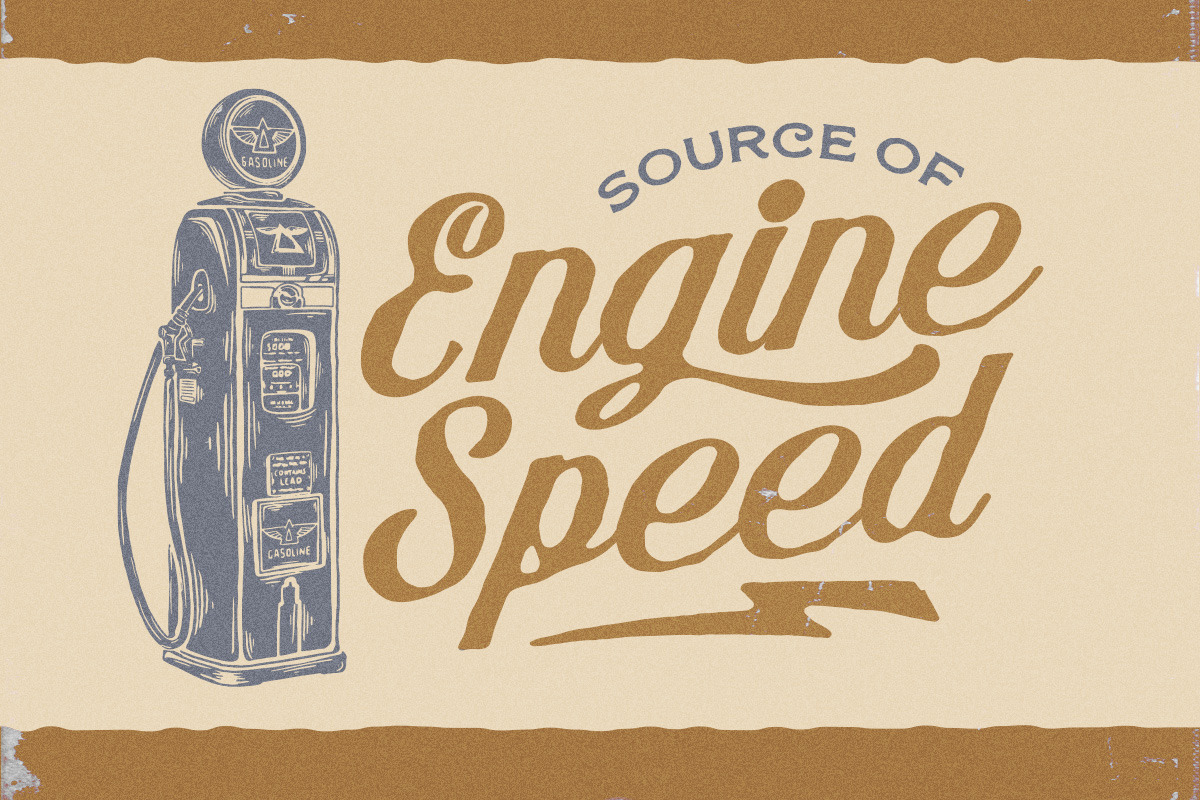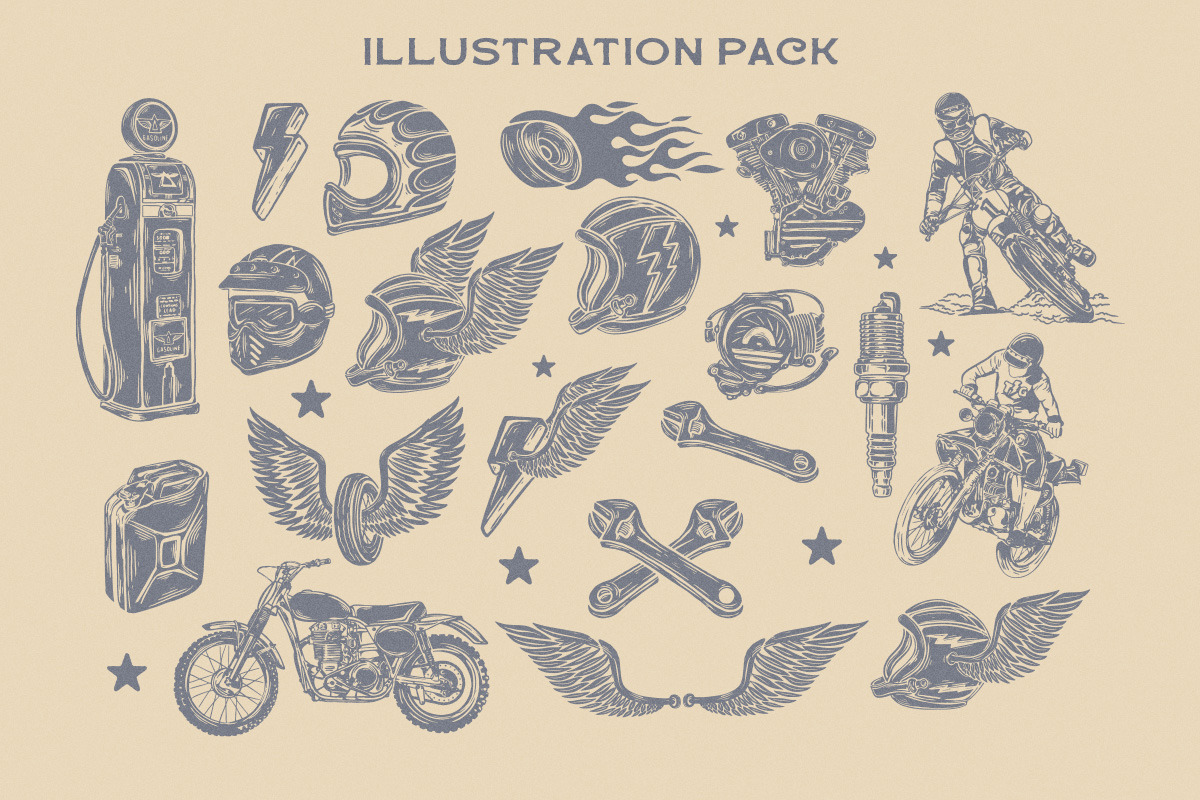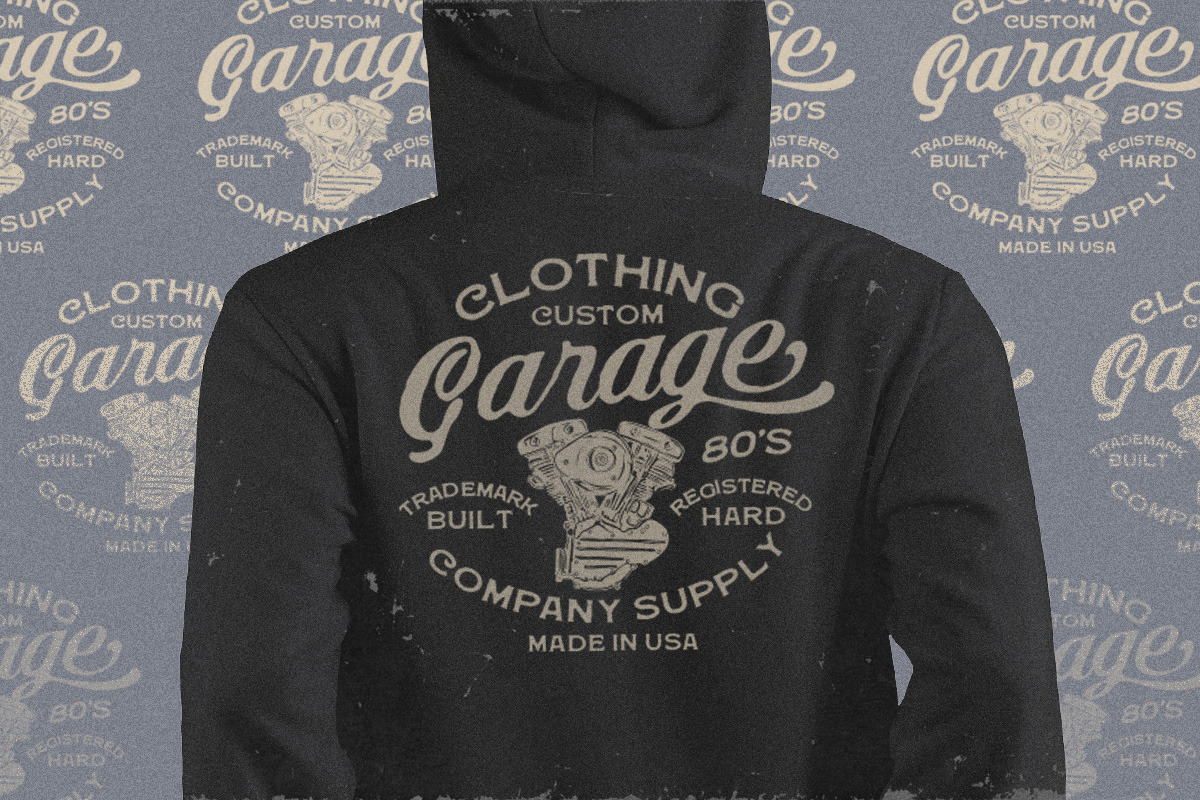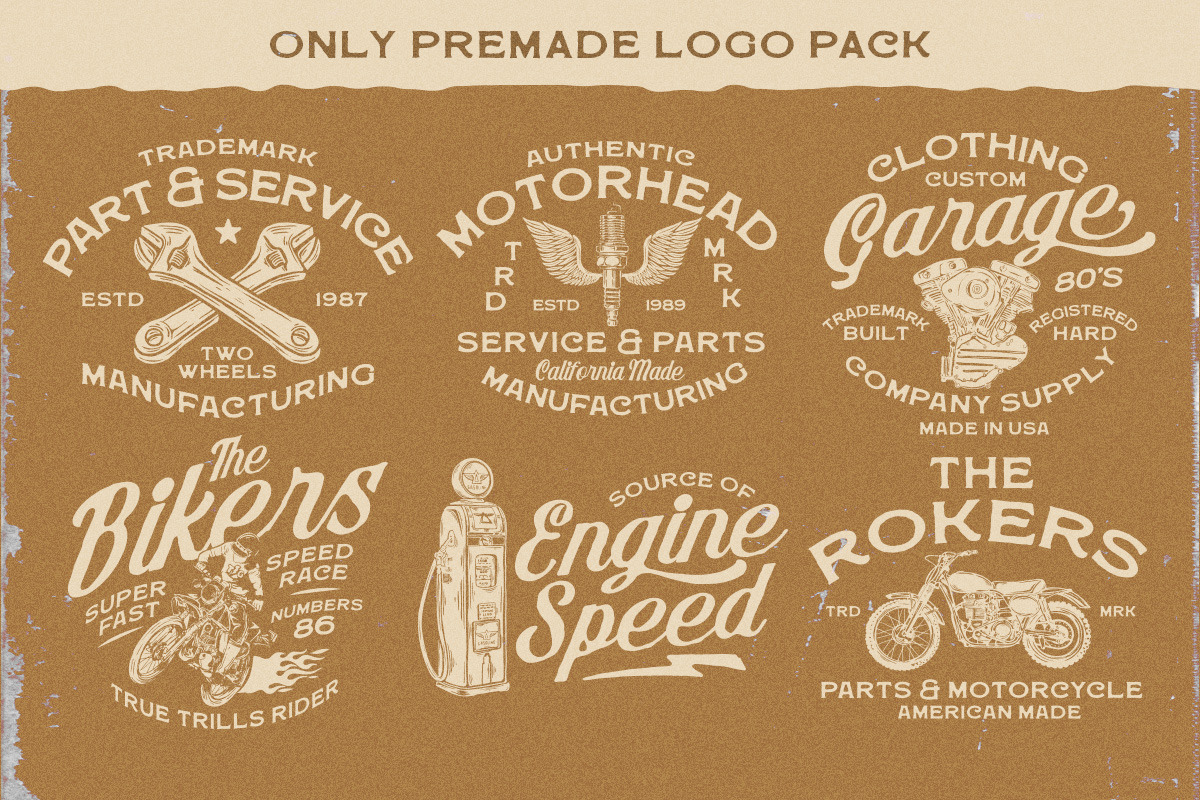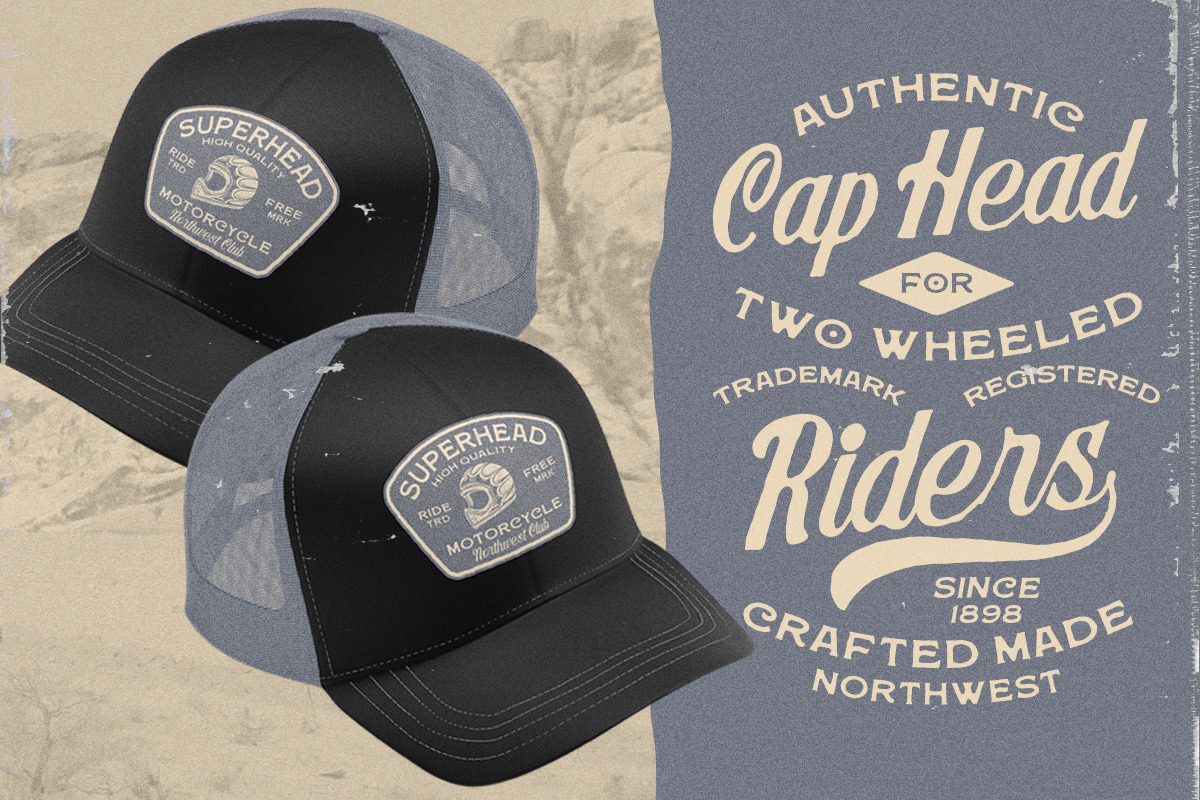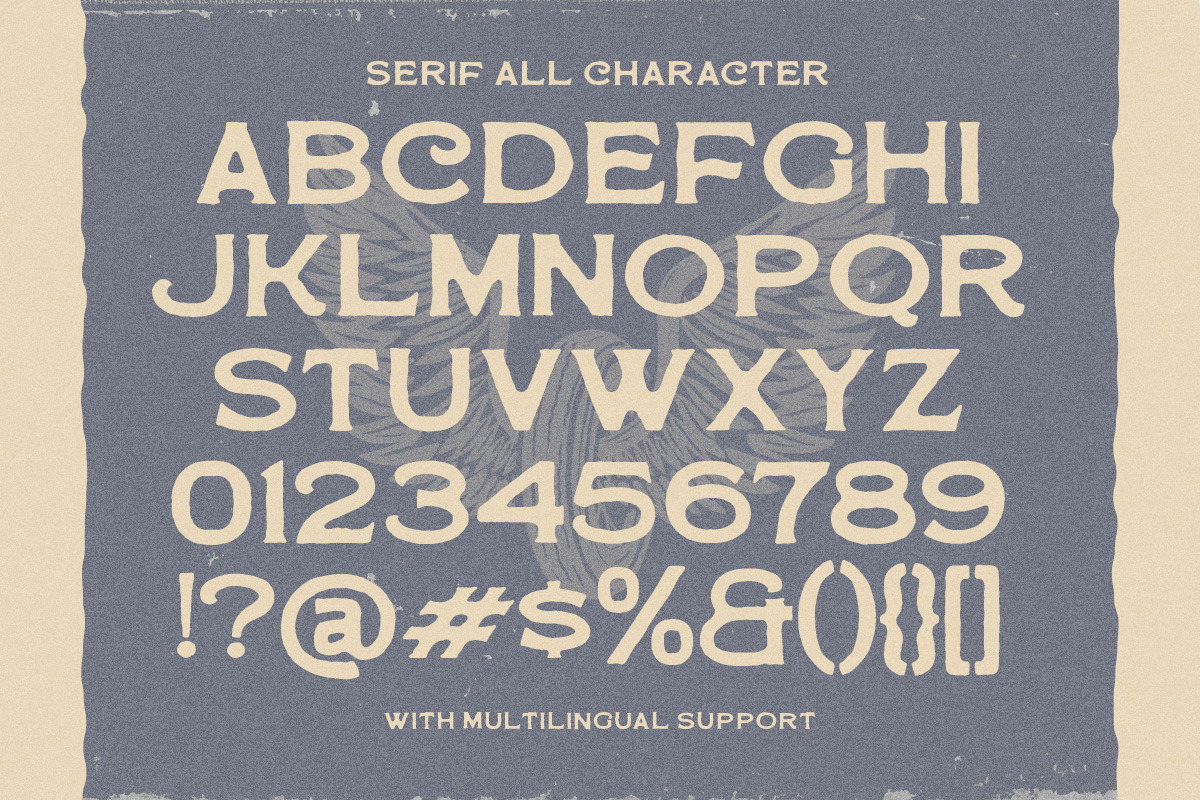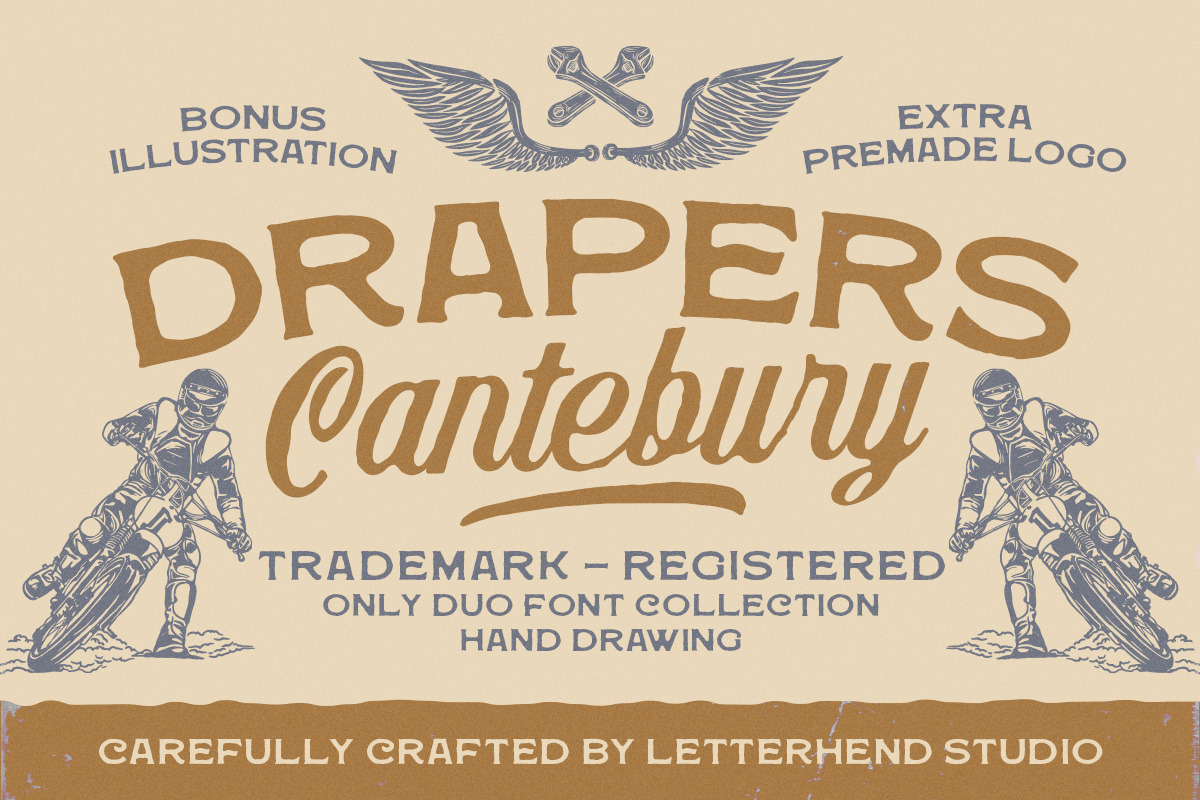
Drapers Canterbury Font Duo
Drapers Canterbury is a bold and vintage-inspired duo font collection, carefully crafted to bring a rugged yet elegant touch to your designs. Featuring a mix of strong serif and classic script, this hand-drawn typeface is perfect for branding, logos, apparel, posters, packaging, and more.